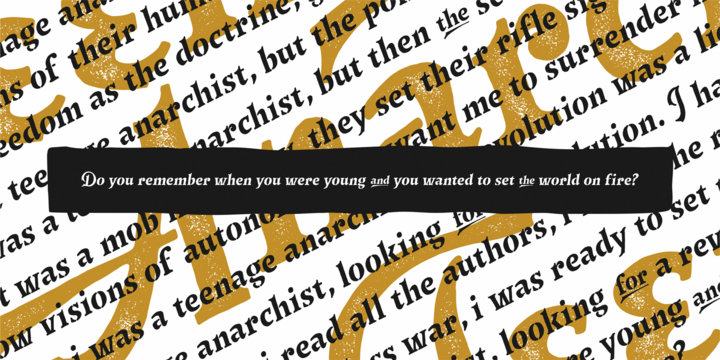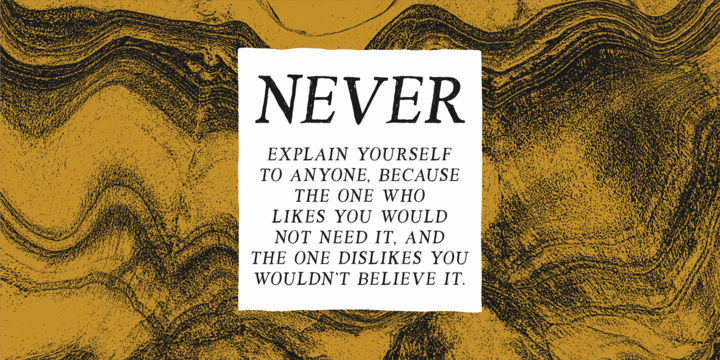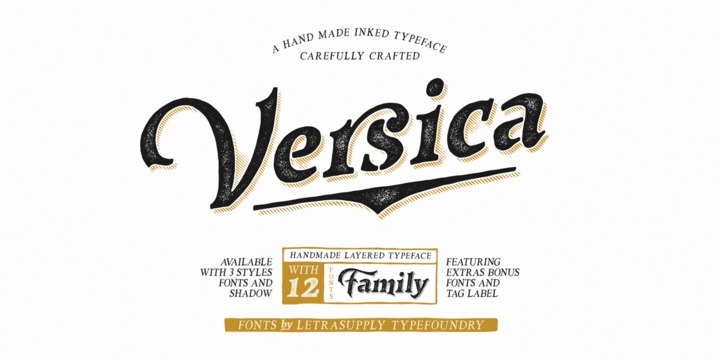
Versica is a handcrafted display font. This font family consists of multiple style fonts that can be used either as authentic individual fonts or can be combined to get cool layered type.
The package is completed with swashes, shadow and serif font. Don't forget to play with stylistic alternates character that featuring the font. You may get a perfect font for any advertise or editorial work issues.